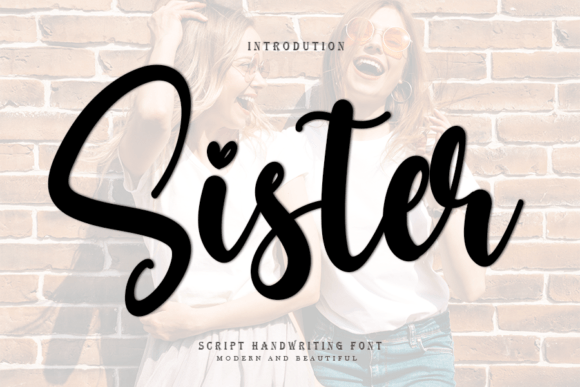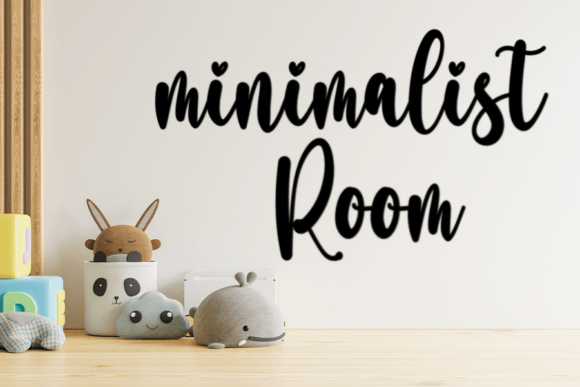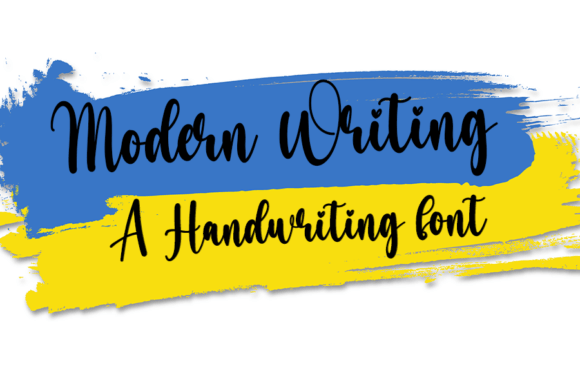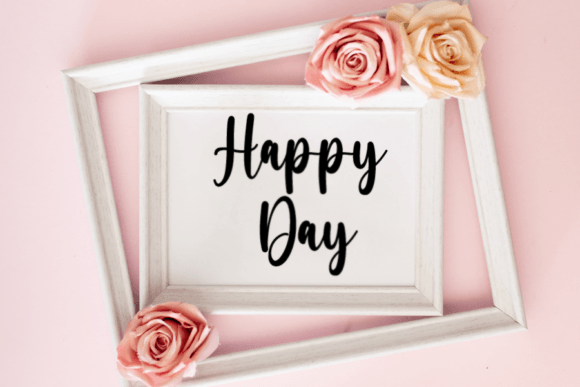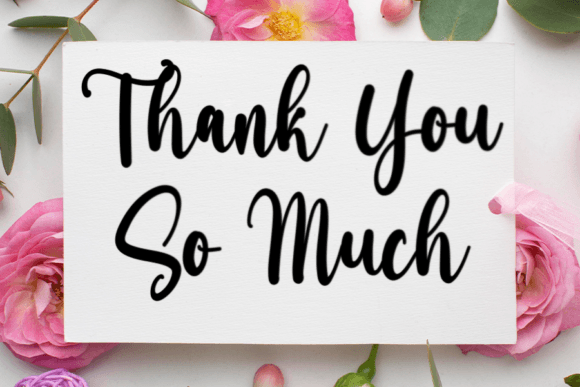
Sister Font
Sister Handwritten Font – Gorgeous and Elegant Typeface
The Sister HandwrittenFont is a graceful script typeface designed to bring warmth and sophistication into your projects. With its elegant and curvy lines, it creates a beautiful handwritten flow that feels both stylish and natural. Whether used for branding, wedding stationery, or social media posts, this font makes your designs stand out.
A Handwritten Script with Style
The Sister Handwritten Font blends refined curves with balanced strokes, making it both decorative and easy to read. Its curvy shapes add personality while its clear structure ensures professional usability. This combination makes it perfect for projects that require a sweet and elegant handwritten touch.
Perfect for Weddings and Branding
One of the most popular uses of the Sister HandwrittenFont is in wedding invitations and event stationery. Its natural handwritten flow gives a romantic and heartfelt look. At the same time, it enhances branding projects, product packaging, and magazine layouts with its timeless style.
Versatility Across Creative Projects
The Sister Handwritten Font is versatile enough for multiple applications. From logos and business cards to posters, labels, and social media graphics, it adapts seamlessly. Its stylish handwritten look ensures your designs carry elegance across both print and digital platforms.
Why Designers Love Sister Font
Designers appreciate the Sister HandwrittenFont for its balance of beauty and readability. Its graceful curves make it attractive for decorative use, while its clarity ensures it remains practical for professional design needs.
In summary, the Sister HandwrittenFont is a gorgeous, elegant, and versatile typeface. With its curvy handwritten strokes, quick installation, and wide usability, it is perfect for weddings, branding, packaging, and creative projects. Don’t miss the chance to download Sister HandwrittenFont and elevate your designs with timeless charm.